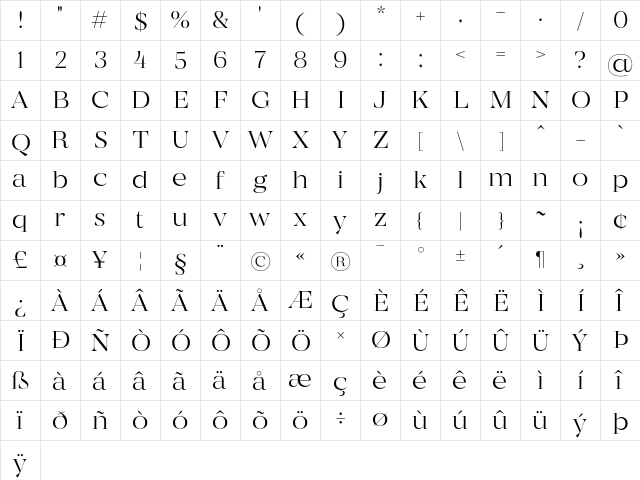
MADE Coachella Thin
Design Context for MADE Coachella Typeface
MADE Coachella is a composed and adaptable typeface that performs quietly and consistently across a wide range of design contexts. Its slender proportions lend an understated elegance to any composition.
Pro Tip: Use MADE Coachella in both headline and body roles to test its range before committing to a single application.